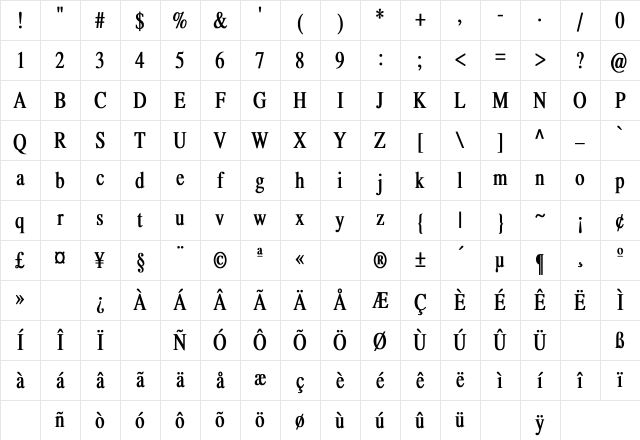
RSTempus Cn bold Bold Free Font
Design Context for RSTempus Cn bold
RSTempus Cn bold is a composed and adaptable typeface that performs quietly and consistently across a wide range of design contexts. Its bold stroke weight gives it real presence on the page.
Pro Tip: Use RSTempus Cn bold in both headline and body roles to test its range before committing to a single application.